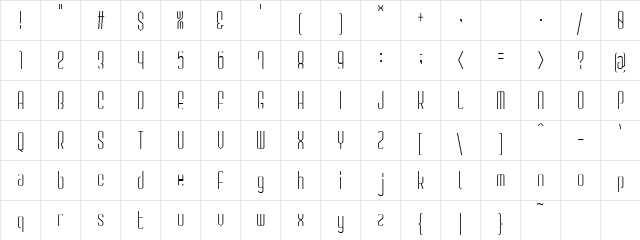
GauFontSpyLetter Regular Font Preview
GauFontSpyLetter Regular
GauFontSpyLetter Regular Font Details
Design Context for GauFontSpyLetter Typeface
GauFontSpyLetter takes a measured approach to typography — its balanced proportions and neutral character make it a reliable workhorse for both digital and print work.